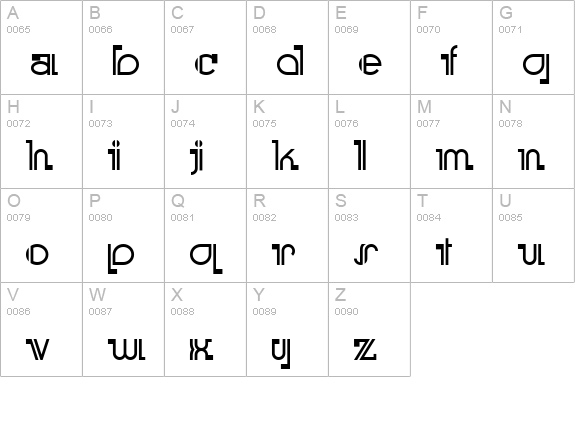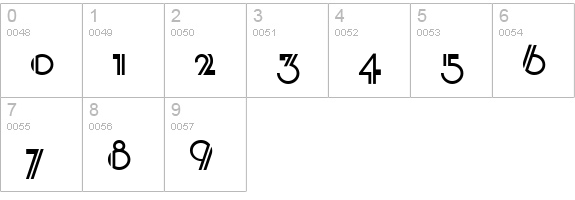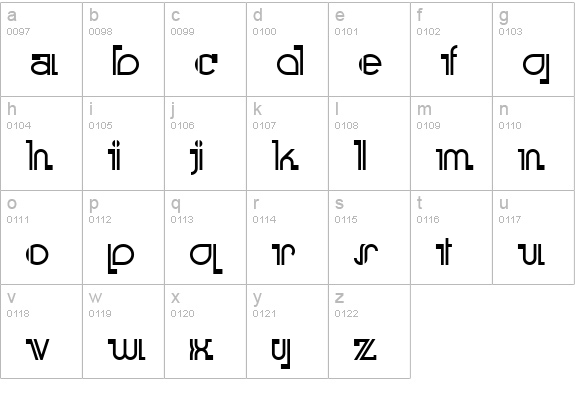
Boomer Ingue NF Font Details
Boomer Ingue NF is a free for personal use font in the Modern > Stencil category. It has been downloaded 4 times and is available for Windows, Mac and Linux.
Introducing Boomer Ingue NF, a captivating font that seamlessly blends modernity with a touch of vintage charm. This font exudes an air of sophistication and elegance, making it a perfect choice for a wide range of design projects - from branding and logos to invitations and editorial layouts. Boomer Ingue NF is a true testament to the art of typography, crafted with meticulous attention to detail. Each letterform is meticulously designed, with smooth curves and clean lines that enhance legibility and readability. The varying stroke widths create a harmonious balance, creating a visually pleasing aesthetic that is both modern and timeless. One of the most remarkable features of Boomer Ingue NF is its versatility. Whether used in bold headlines or delicate body text, this font effortlessly adapts to any design context, adding a touch of sophistication and refinement. With its distinctive personality, Boomer Ingue NF can effortlessly convey a wide range of emotions - from bold and assertive to elegant and refined. And the best part? Boomer Ingue NF is freely available to download at FontsMarket.com. This means that you can unleash your creativity without any limitations, as this font is accessible to designers of all levels. Don't miss this opportunity to elevate your designs with Boomer Ingue NF, a font that is as versatile as it is visually stunning.